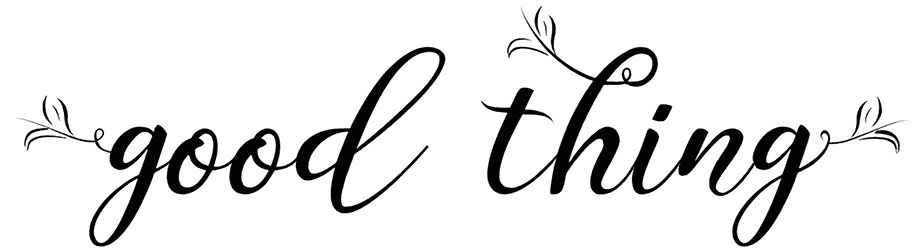
Good Thing Font
We are so excited to represent you with a calligraphy font, Good Things. It’s created uniquely to make your design stand out and brighten it up from the rest.
This feminine font has a soft and elegant texture that can be used in projects related to feminine concepts. You can also use it for wedding invitations, greeting cards, cosmetic brands, fashion magazines, and bullet journal titles.
Good thing is a vintage inspired calligraphy script font, perfect for that elegant touch needed for logos, wedding invitations, modern websites, greeting cards, and more! This font is PUA encoded which means you can access all of the glyphs and swashes with ease!